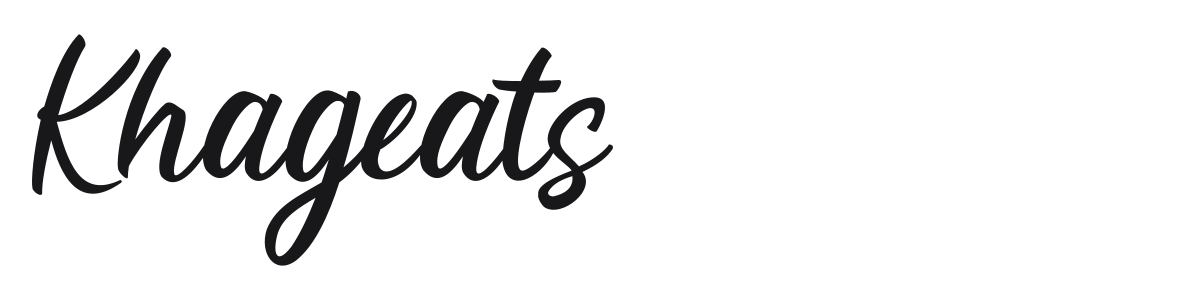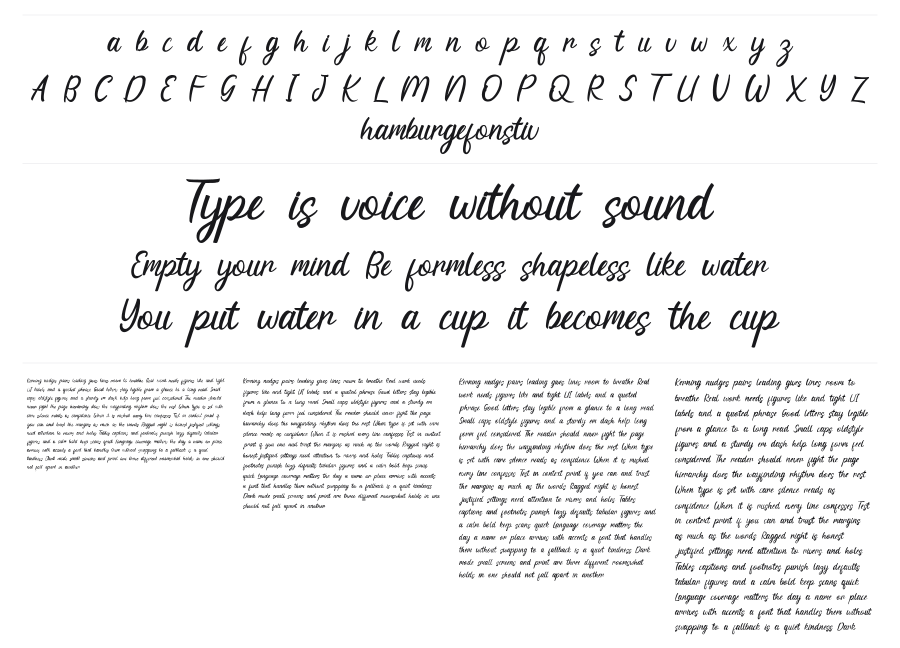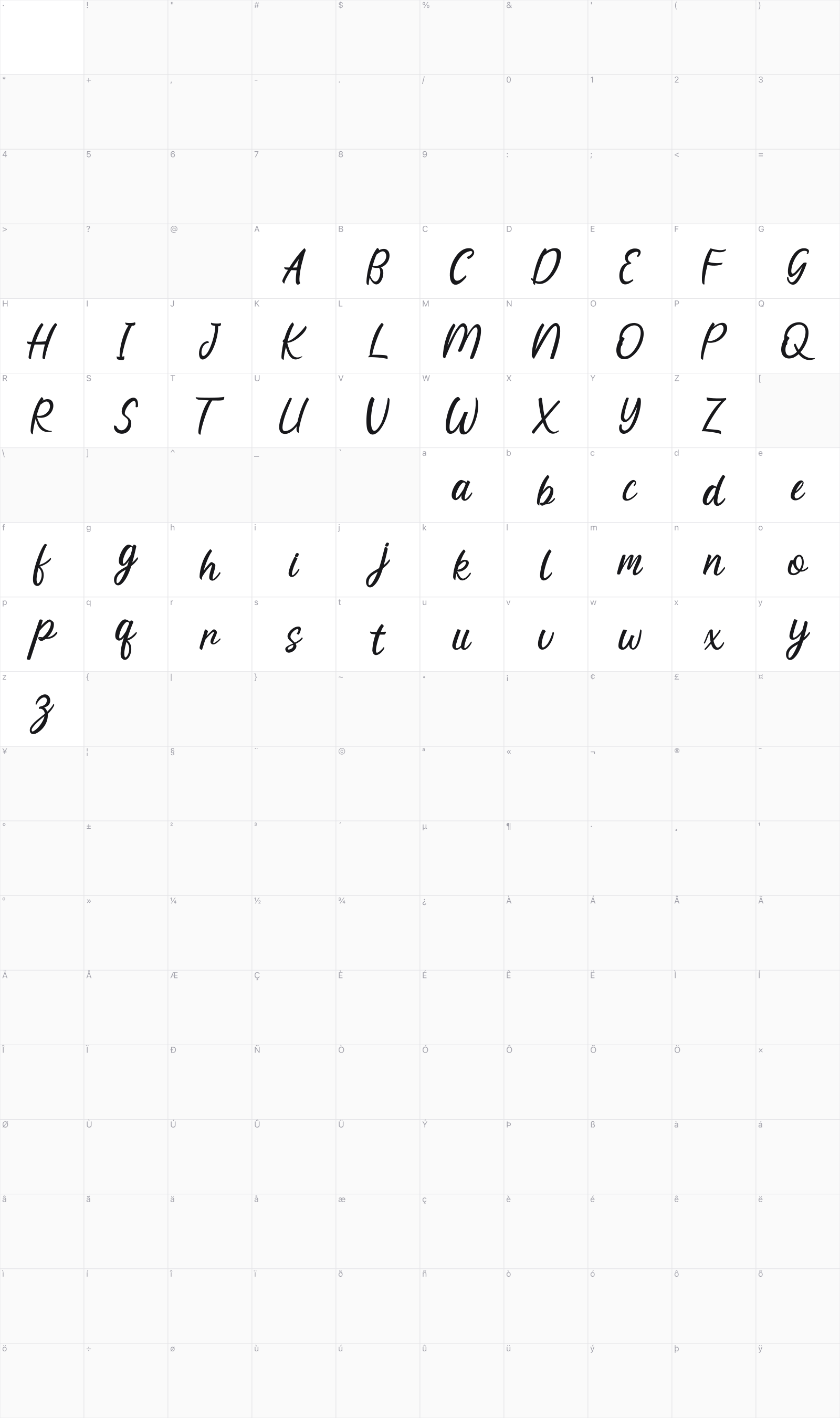
Khageats
Khageats is a bold casual brush script with flowing connected strokes and looping ascenders that give it a lively, hand-lettered energy. The generous curves and bouncy rhythm make it feel spontaneous without sacrificing legibility at large sizes. It sits naturally in branding contexts that call for warmth and an artisan touch.